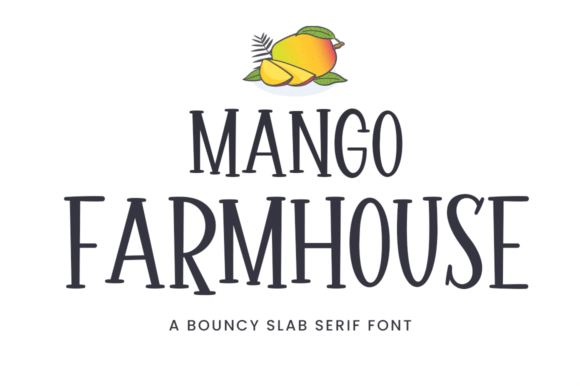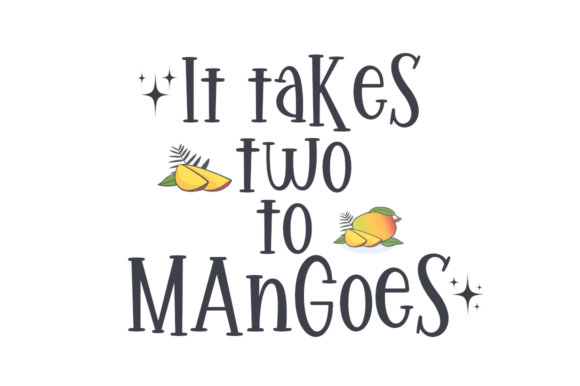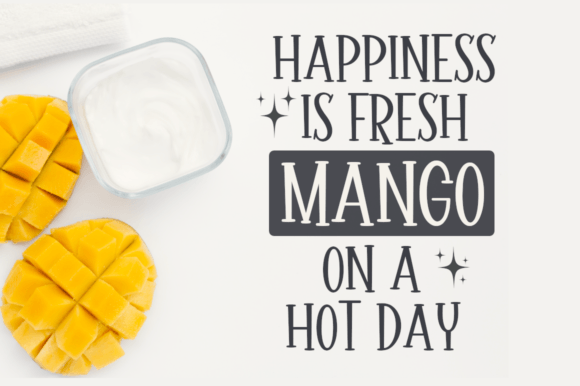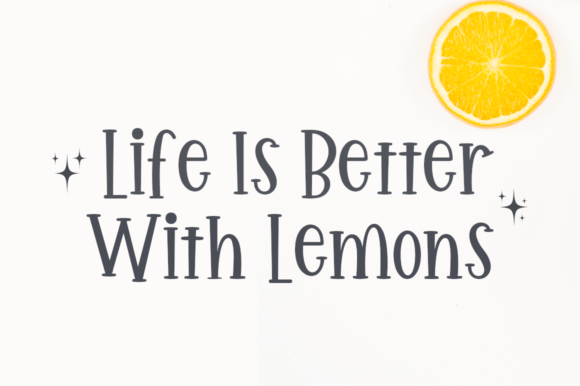
Mango Farmhouse Font: A Cute & Playful Display Font for Cricut
About the Mango Farmhouse Font
Introducing the Mango Farmhouse Font, a beautifully crafted typeface designed to elevate your creative projects. Mango Farmhouse is a light, fun, and bouncy font that’s perfect for all your summer projects. Fall in love with it and use it to create lovely designs.
Its light weight and playful bounce make it ideal for headlines, short text blocks on packaging, and eye-catching social media graphics. Consider it for branding projects focused on food, crafts, or children’s products. However, avoid using Mango Farmhouse for body text or lengthy content; its informal nature makes it unsuitable for applications requiring high readability over extended periods.
Pairing Mango Farmhouse with a clean sans-serif like Lato for body copy provides excellent contrast and readability. For a more playful feel, a rounded geometric sans-serif such as Poppins would also complement its bouncy energy. A classic serif like Playfair Display could add a touch of sophistication to projects where a slightly more formal element is needed.
Mango Farmhouse projects a friendly, approachable personality. Its light weight and rounded forms create a sense of warmth and approachability, making it perfect for brands that wish to convey a summery, carefree vibe.
Mango Farmhouse Font Usage Examples
Mango Farmhouse Font Example